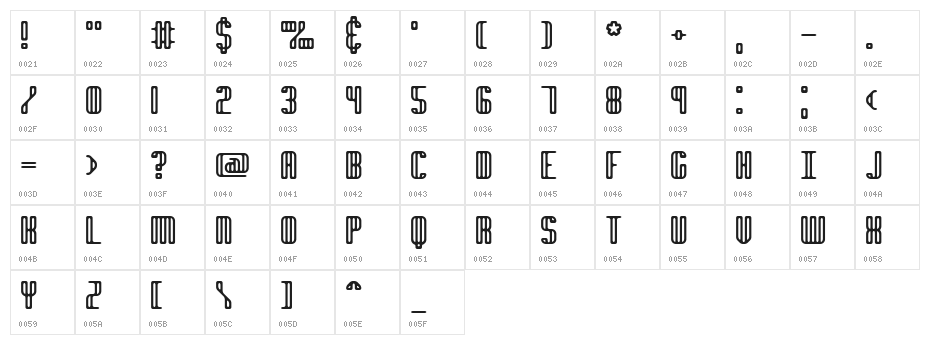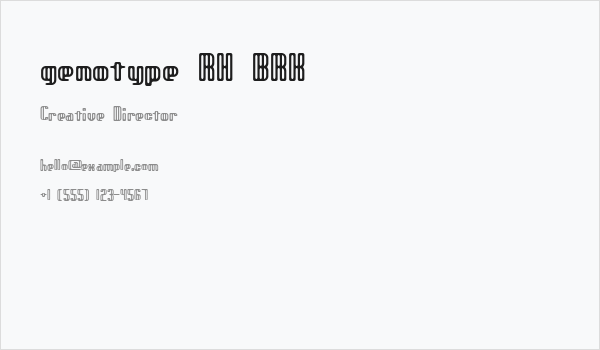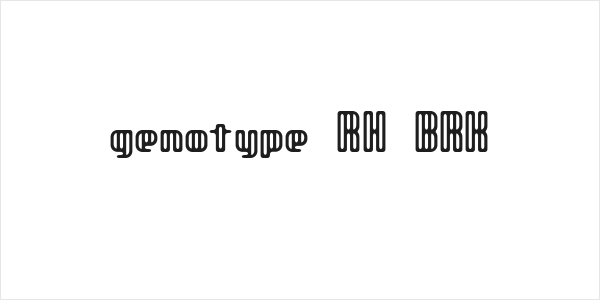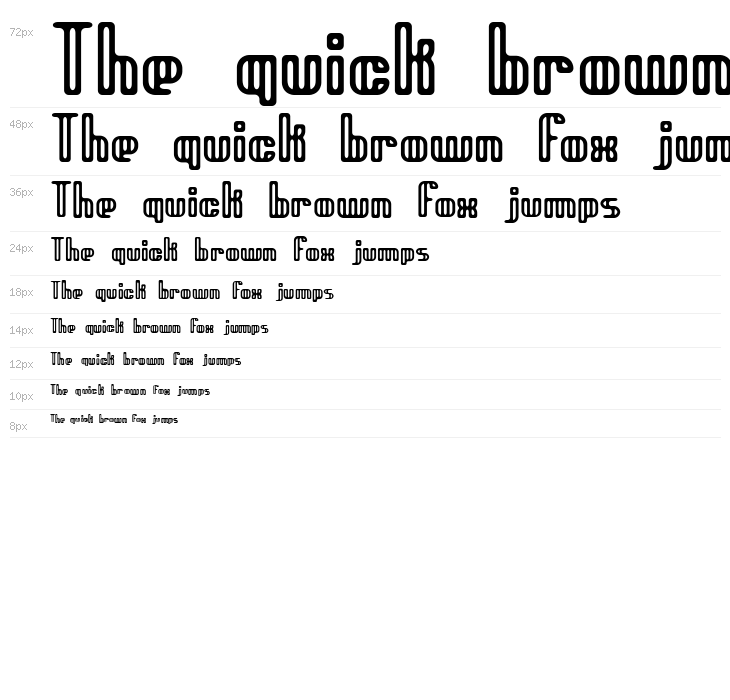
genotype RH BRK Font
genotype RH BRK Description
This font features a unique and modern design with a bold, tubular structure. Each character is crafted with rounded edges and a consistent stroke width, giving it a cohesive and futuristic appearance. The uppercase and lowercase letters maintain a uniform height, while the numbers and special characters are designed to match the overall aesthetic. The font's style is both decorative and functional, making it suitable for a variety of creative applications. Its distinct look is achieved through the use of geometric shapes and a clean, uncluttered design, which enhances readability while maintaining a strong visual impact.
| Proposed Projects | Ideal for branding, posters, and digital media where a modern and eye-catching typeface is desired. |